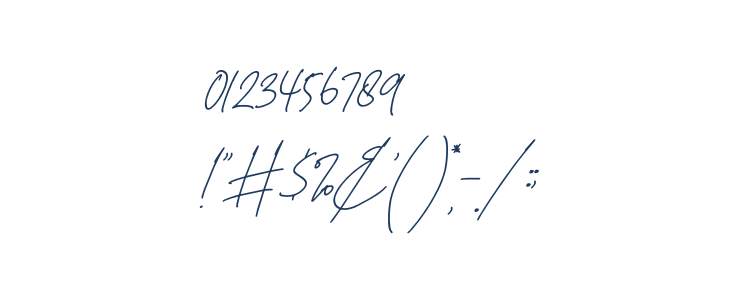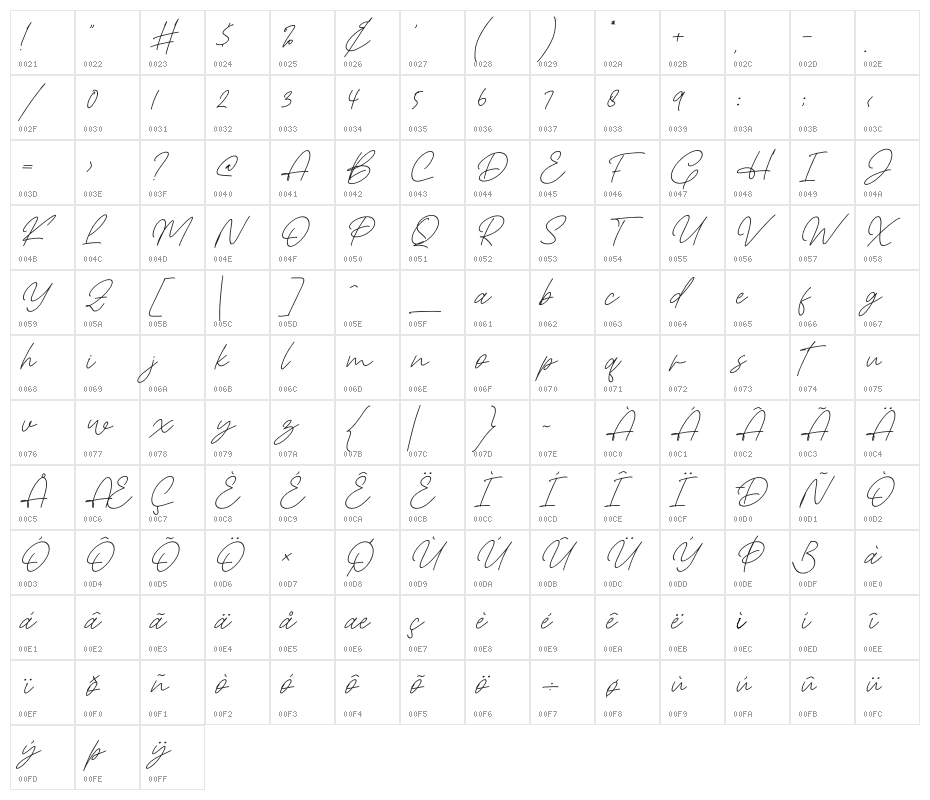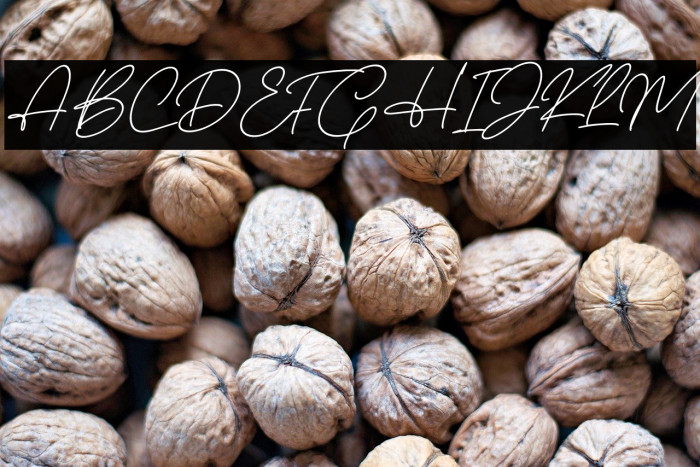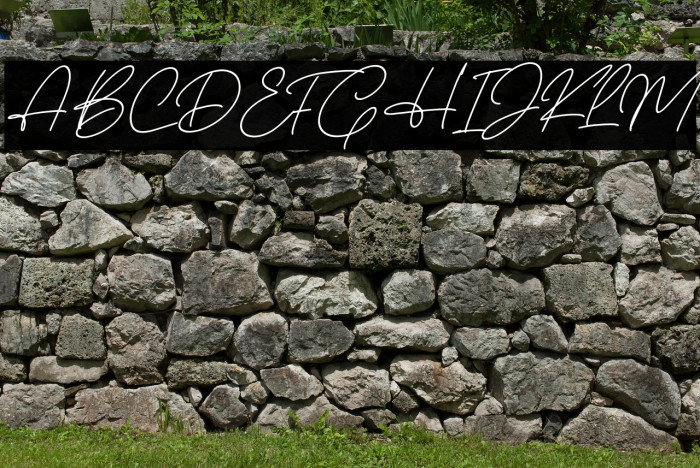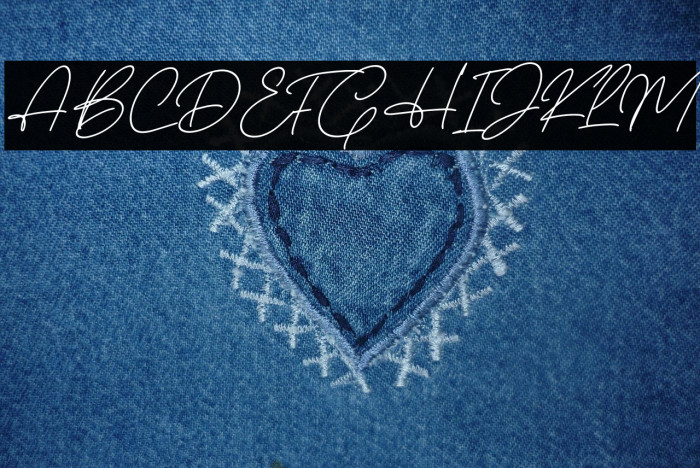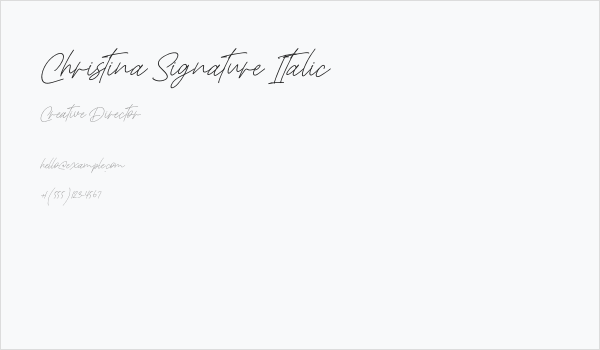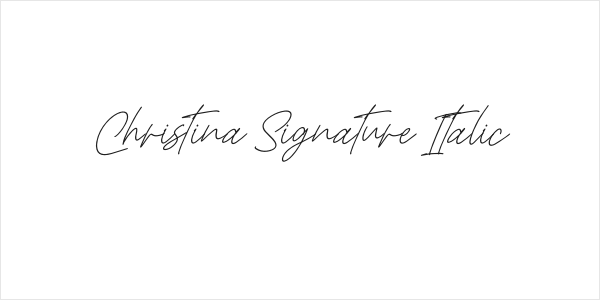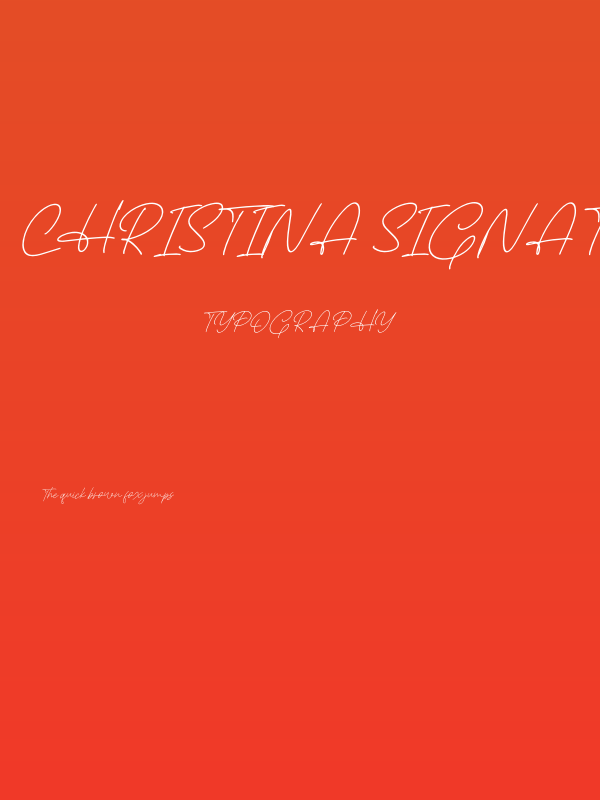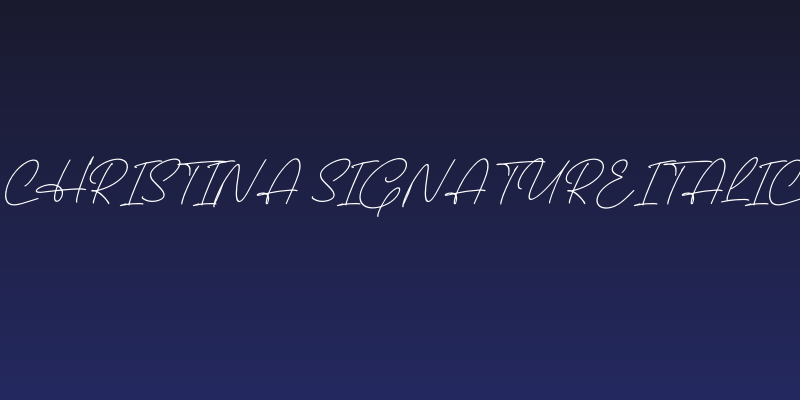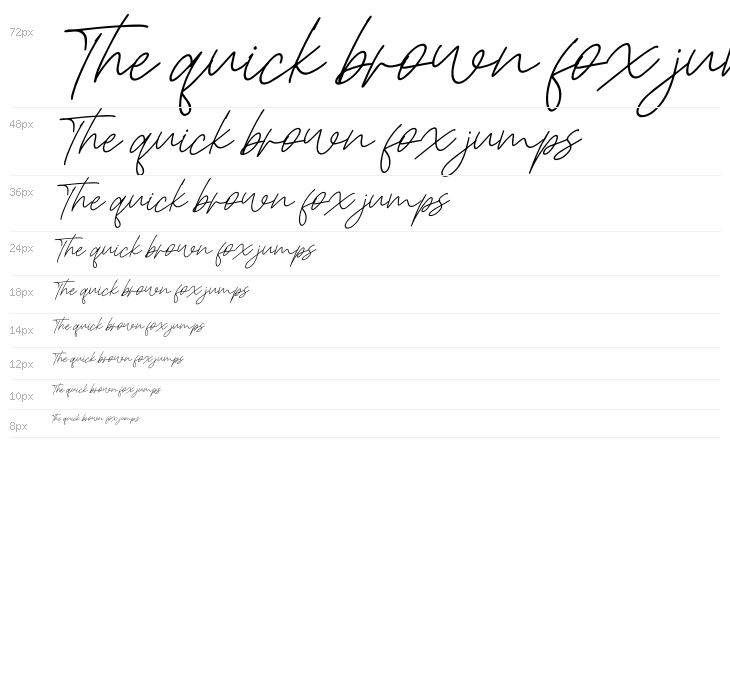
Christina Signature Italic Font
Christina Signature Italic Description
This font exudes elegance and sophistication with its flowing, cursive style. Each letter is meticulously crafted to mimic the fluidity of a handwritten signature, making it ideal for projects that require a personal touch. The uppercase letters are slightly more ornate, while the lowercase letters maintain a consistent, graceful flow. Numbers and special characters are designed to complement the overall aesthetic, ensuring a cohesive look across all text elements. The font's italic nature adds a dynamic and stylish flair, perfect for creative and expressive designs.
| Overall Style | Elegant, Handwritten |
| Proposed Projects | Ideal for wedding invitations, personal branding, elegant logos, and stationery design. |